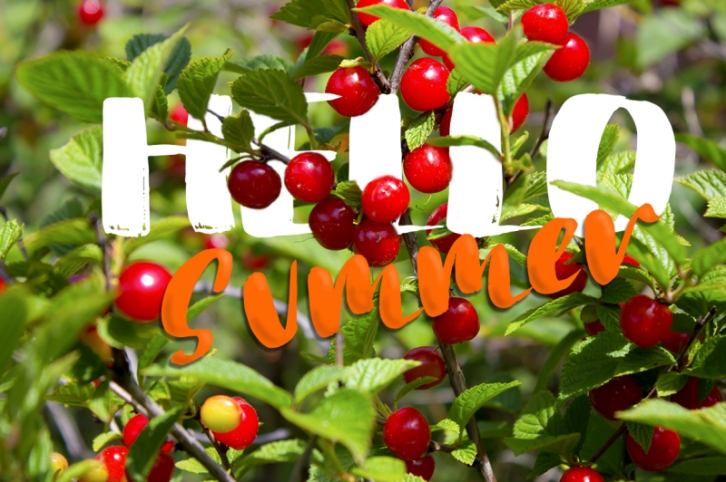
Handwritten ink dry brush bold fonts trio. Perfect for grunge projects, greeting cards, typography work and more. You can see all the letters, numbers and symbols in the 4, 5, 6 preview.